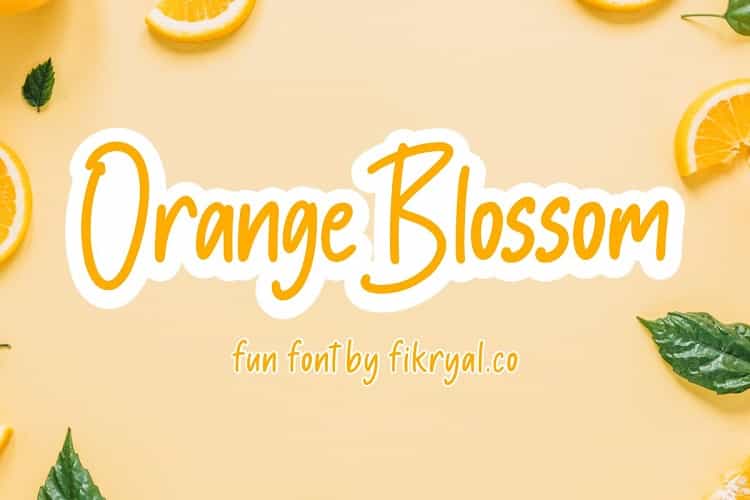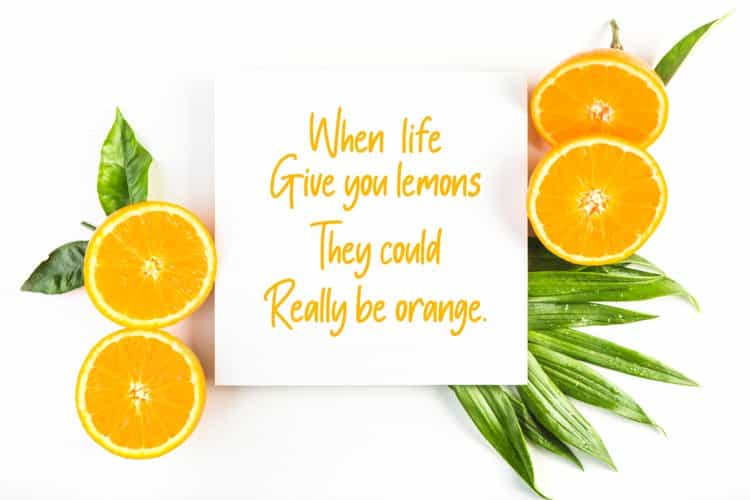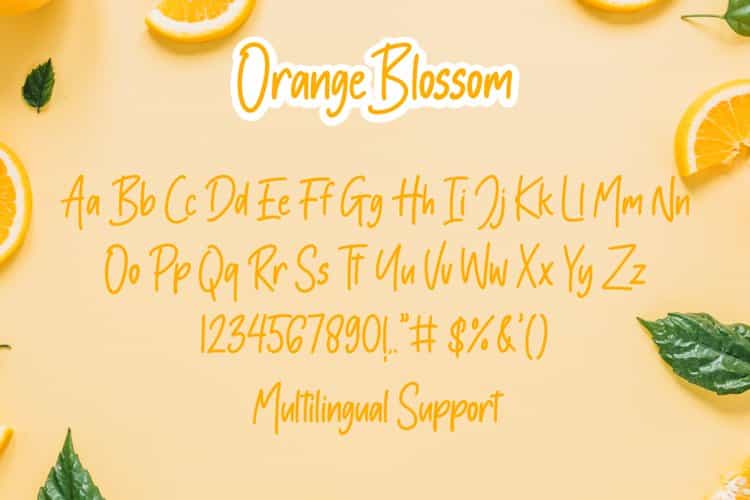
Orange Blossom – is a brand new, funny and fashionable handwritten script typeface. It’s great for logos branding, tittle, advertisements, social media posts packaging for products, designs, labels photo, watermark and special events, magazines and web design, among others.